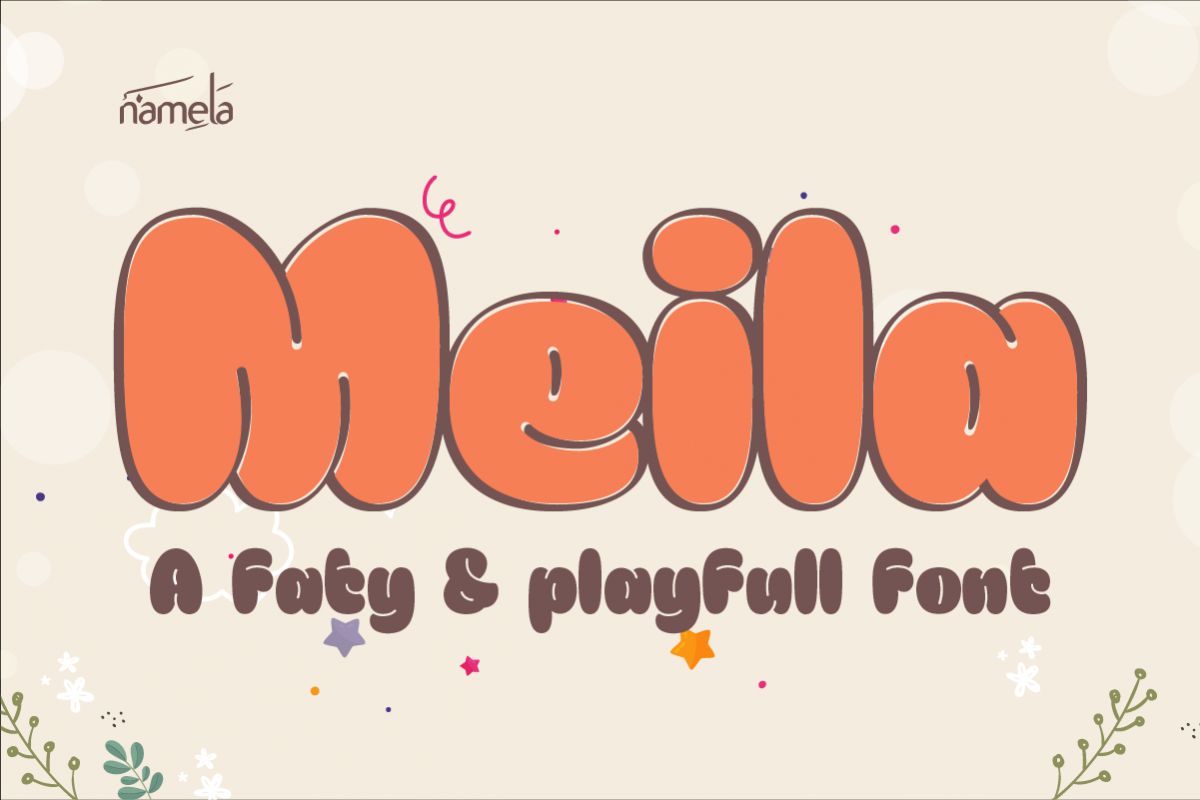
Meila Stroke Bold
Meila Font - A Cute Bubble Typeface for Kids' Branding & Social Media Digital content competes for every second of a child’s attention, so typography needs to do more than look good—it needs to feel irresistibly fun. Meila does exactly that. This cute, fatty bubble display font is built for kids’ social media, children’s branding, and playful logo design. Warm, rounded, and instantly approachable, Meila delivers visual joy that stands out in fast-scrolling digital environments.